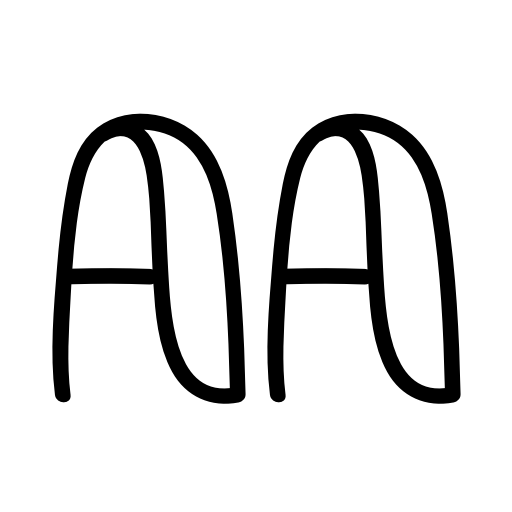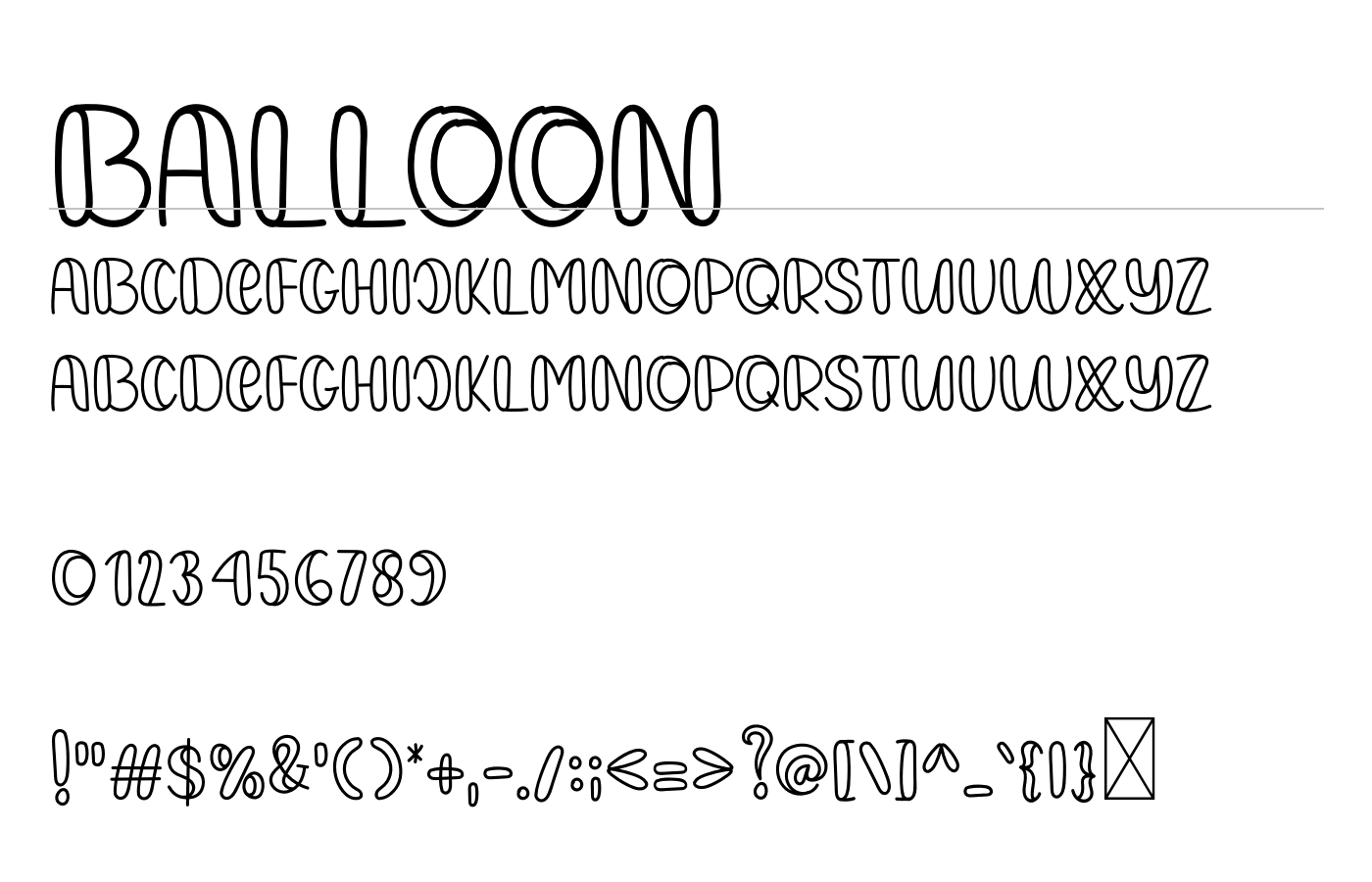
Balloon is a playful and whimsical sans serif font characterized by its rounded, inflated letterforms that resemble balloons. Its light weight and airy spacing give it a casual, friendly feel, making it perfect for children's designs, party invitations, or any project seeking a fun, informal vibe. The font’s unique, hand-drawn style adds personality and charm, ideal for headlines and decorative use where a cheerful and approachable look is desired.
Balloon Font
About Balloon Font